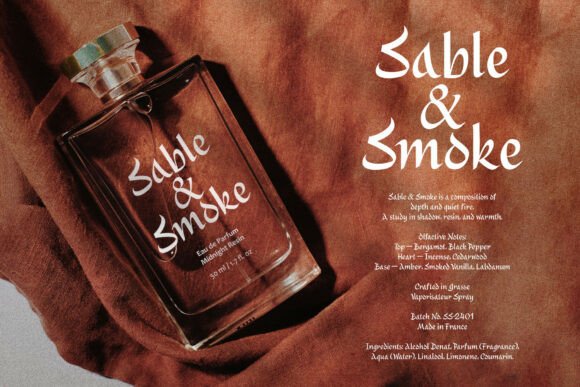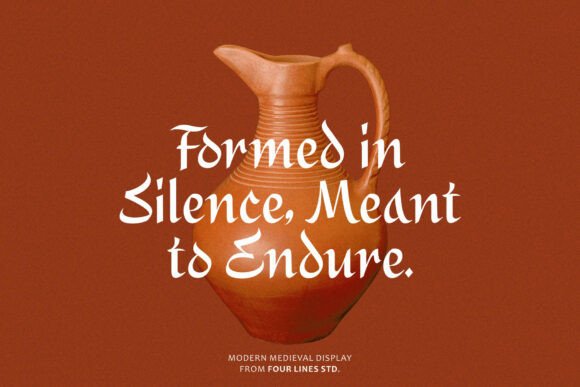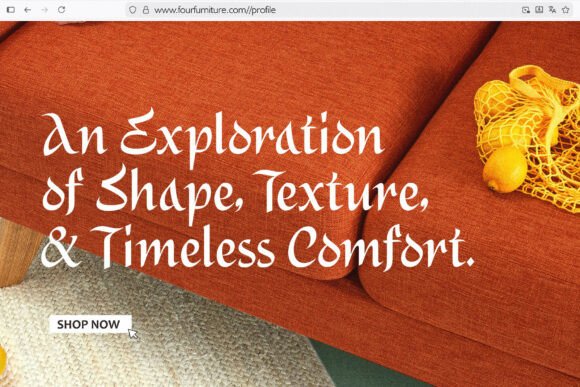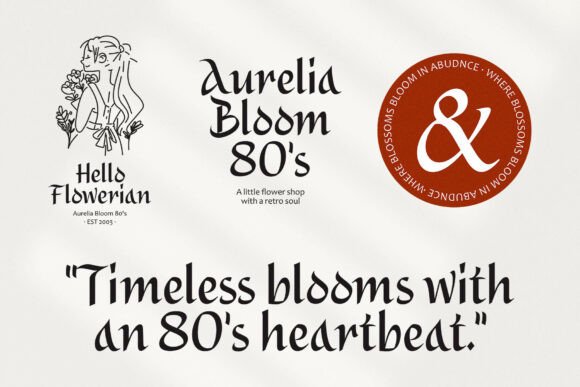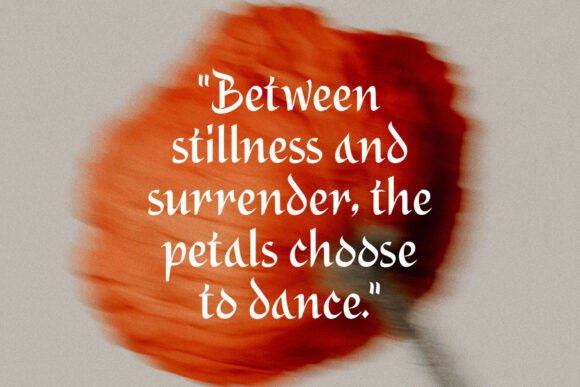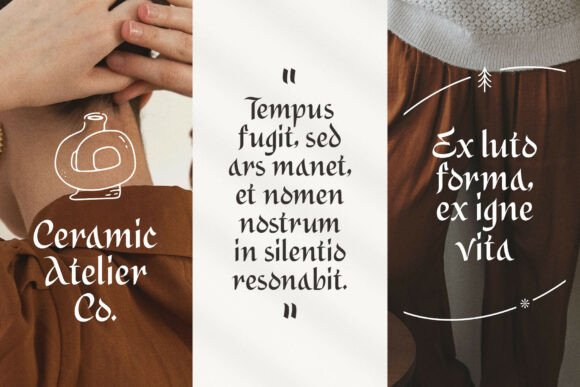
Discover the Charm of Alidin Font: A Modern Medieval Marvel
I’ll never forget the time I was working on a branding project for a historical hotel, and I was struggling to find the perfect font that would capture the essence of the property’s rich heritage. The client wanted something that would transport their guests back in time, but still feel fresh and modern. That’s when I stumbled upon Alidin Font, and it was love at first sight! 💕
Alidin is a modern medieval display font that boasts strong ornamental details and distinctive letterforms. Designed to bring a classic heritage feel with a refined contemporary touch, Alidin stands out with its bold presence and decorative character. In this article, we’ll dive into the world of Alidin, exploring its features, uses, and what makes it a must-have for designers, crafters, and creative hobbyists.
A Personal Review of Alidin Font
What I Love About Alidin ✨
- ✅ Unique blend of historical influence and modern versatility
- ✅ Strong ornamental details and distinctive letterforms
- ✅ Perfect for logos, branding, packaging, posters, editorial layouts, merchandise, and heritage-inspired projects
- ✅ Expressive shapes make it ideal for headlines and large display settings
While Alidin is an amazing font, there are a few things to keep in mind:
- 🤔 May not be suitable for body text or small font sizes due to its ornate nature
- ⚠️ Limited use of OpenType features, glyphs, and stylistic alternates (but still offers some flexibility)
The Story Behind Alidin Font
Alidin Font was designed by a team of typographers who wanted to create a font that would capture the essence of medieval heritage with a modern twist. Inspired by ancient manuscripts and illuminated letters, they crafted a font that’s both elegant and bold. The result is a unique blend of historical influence and modern versatility that’s perfect for designers, crafters, and creative hobbyists.
| Font Name | Alidin Font |
| Author | Fourlines.design |
Q: What type of projects is Alidin Font best suited for?
Alidin Font is perfect for logos, branding, packaging, posters, editorial layouts, merchandise, and heritage-inspired projects.
Q: Can I use Alidin Font for body text?
While Alidin is an amazing font, it’s not recommended for body text or small font sizes due to its ornate nature.
Q: Does Alidin Font support OpenType features and glyphs?
Yes, Alidin Font offers some OpenType features, glyphs, and stylistic alternates, but the range is limited.